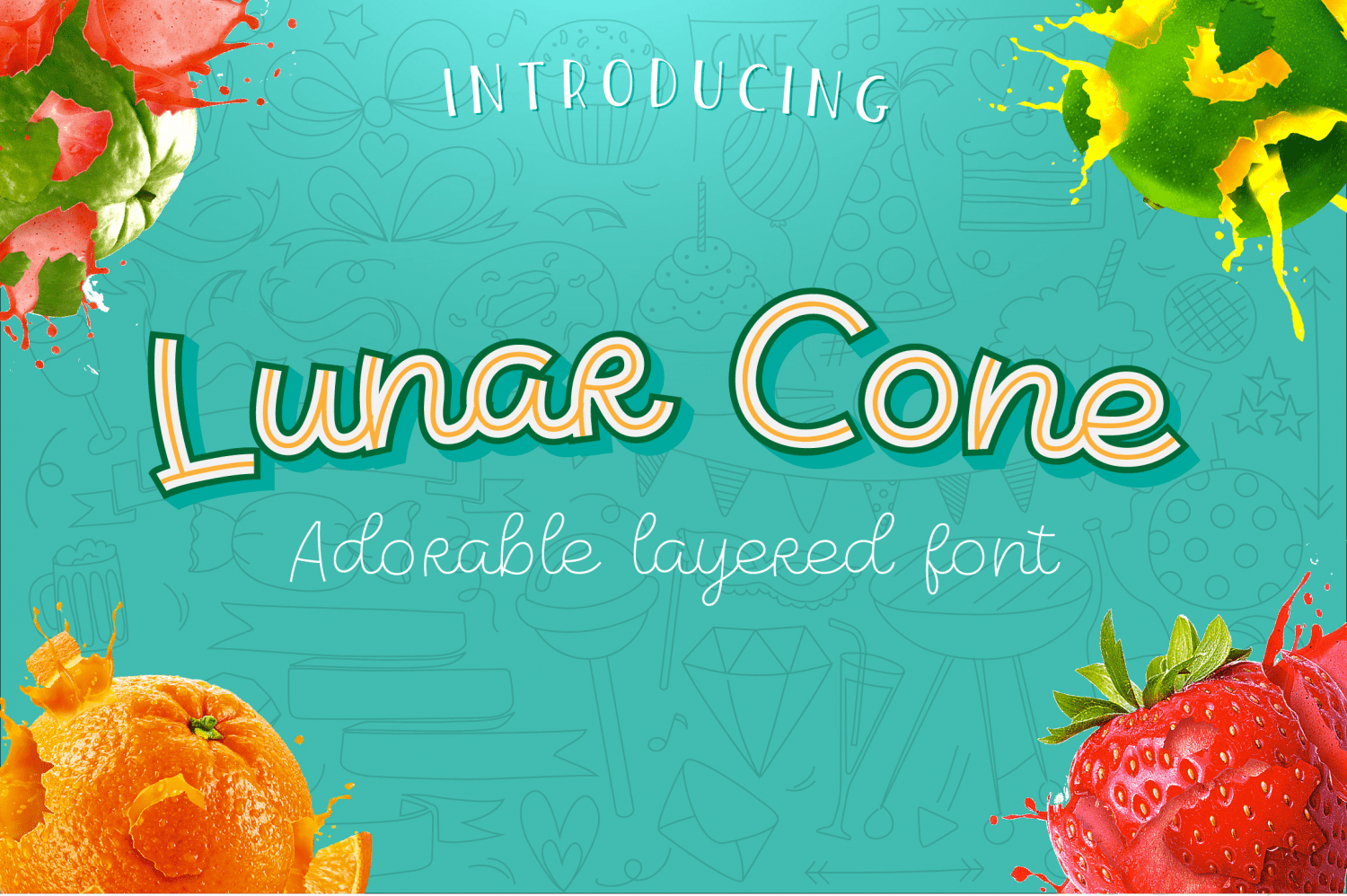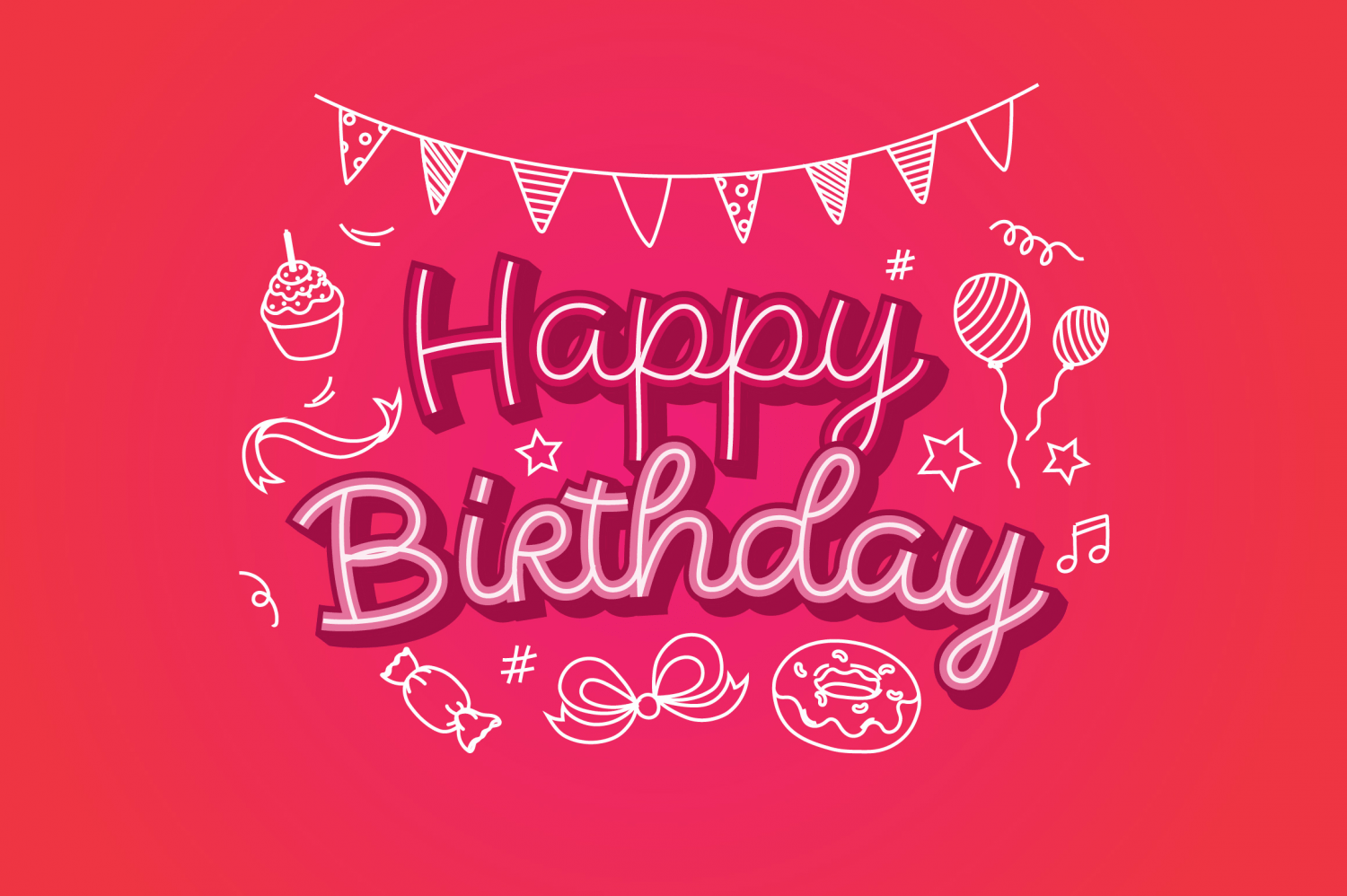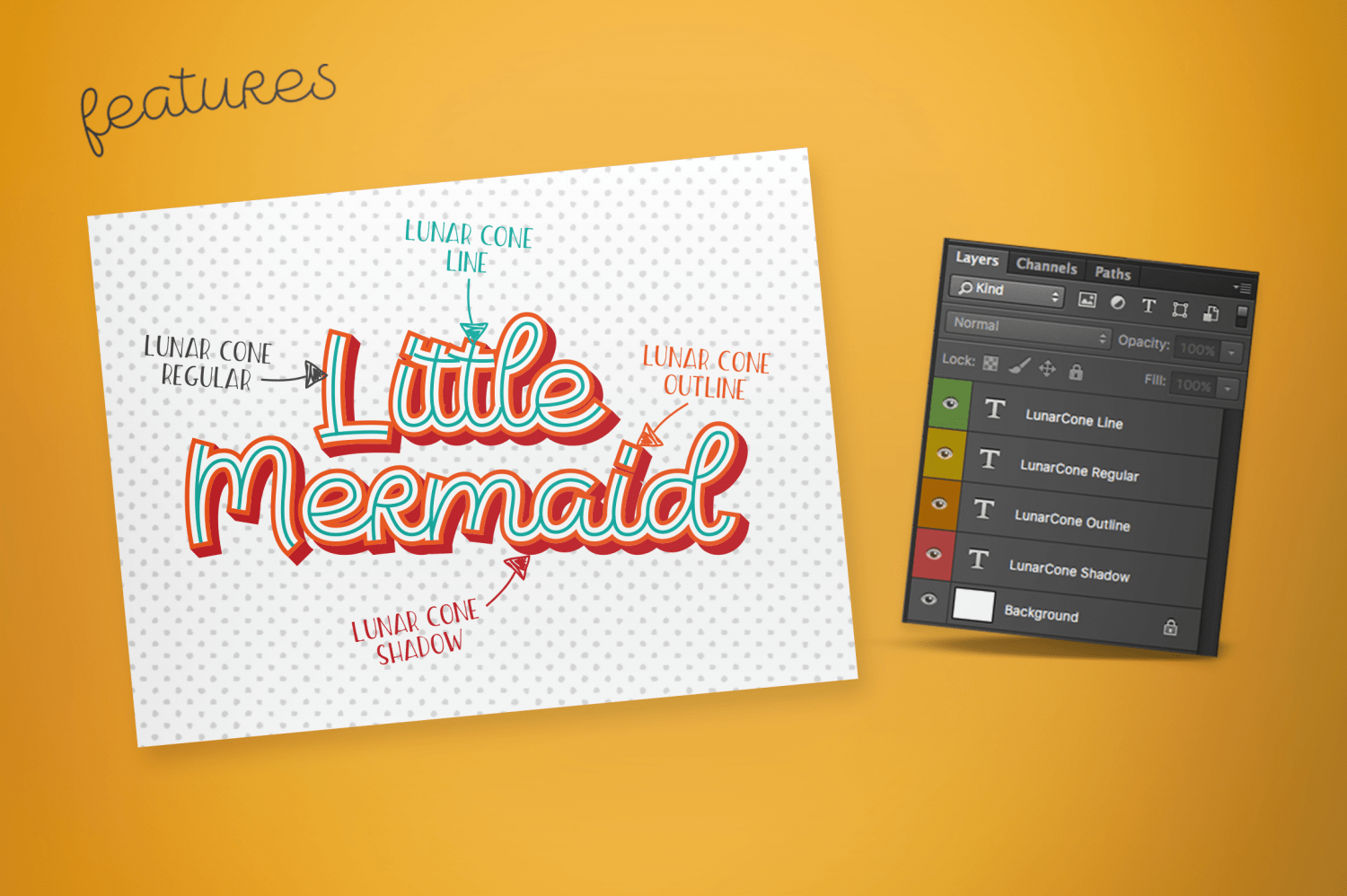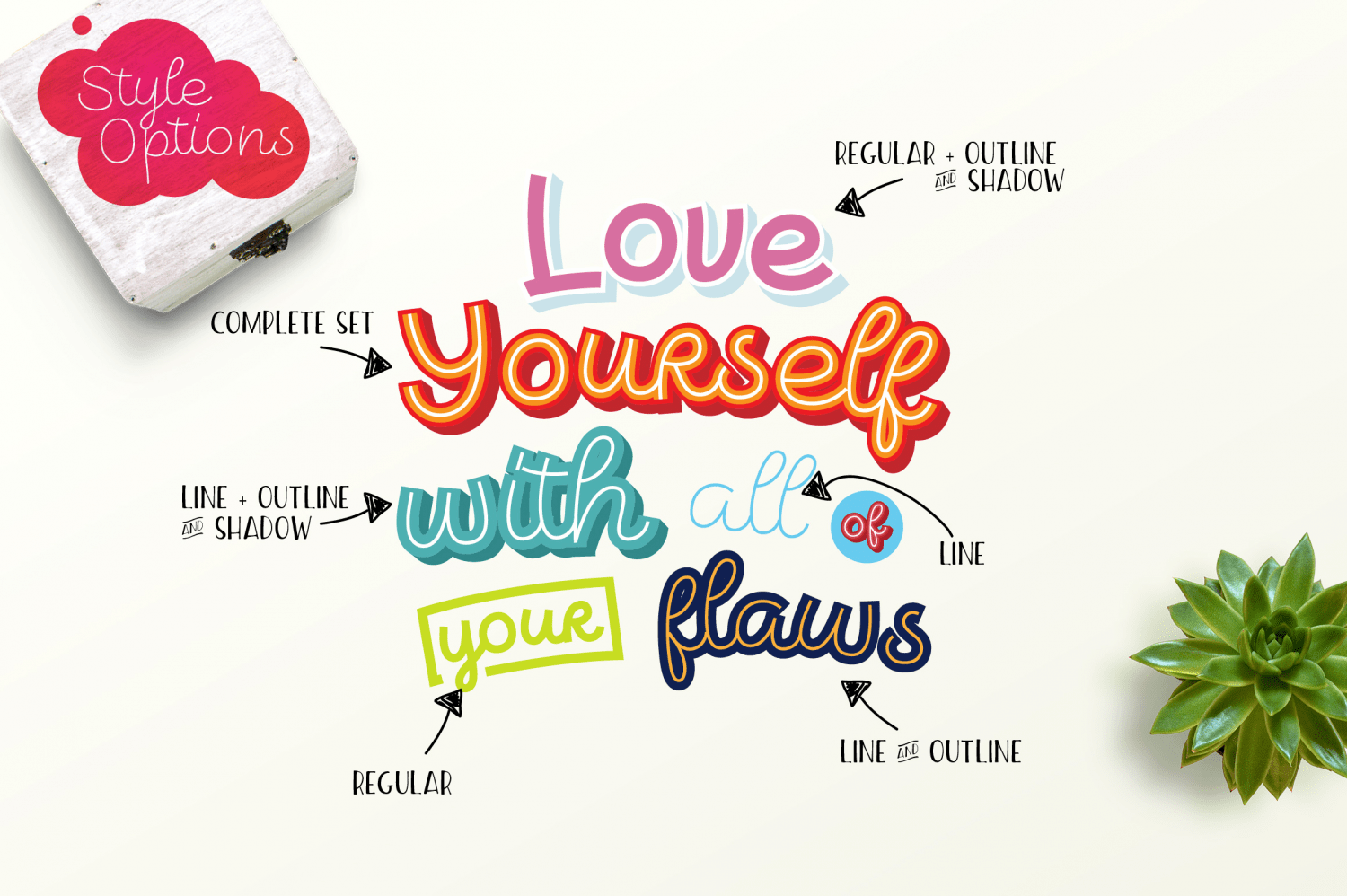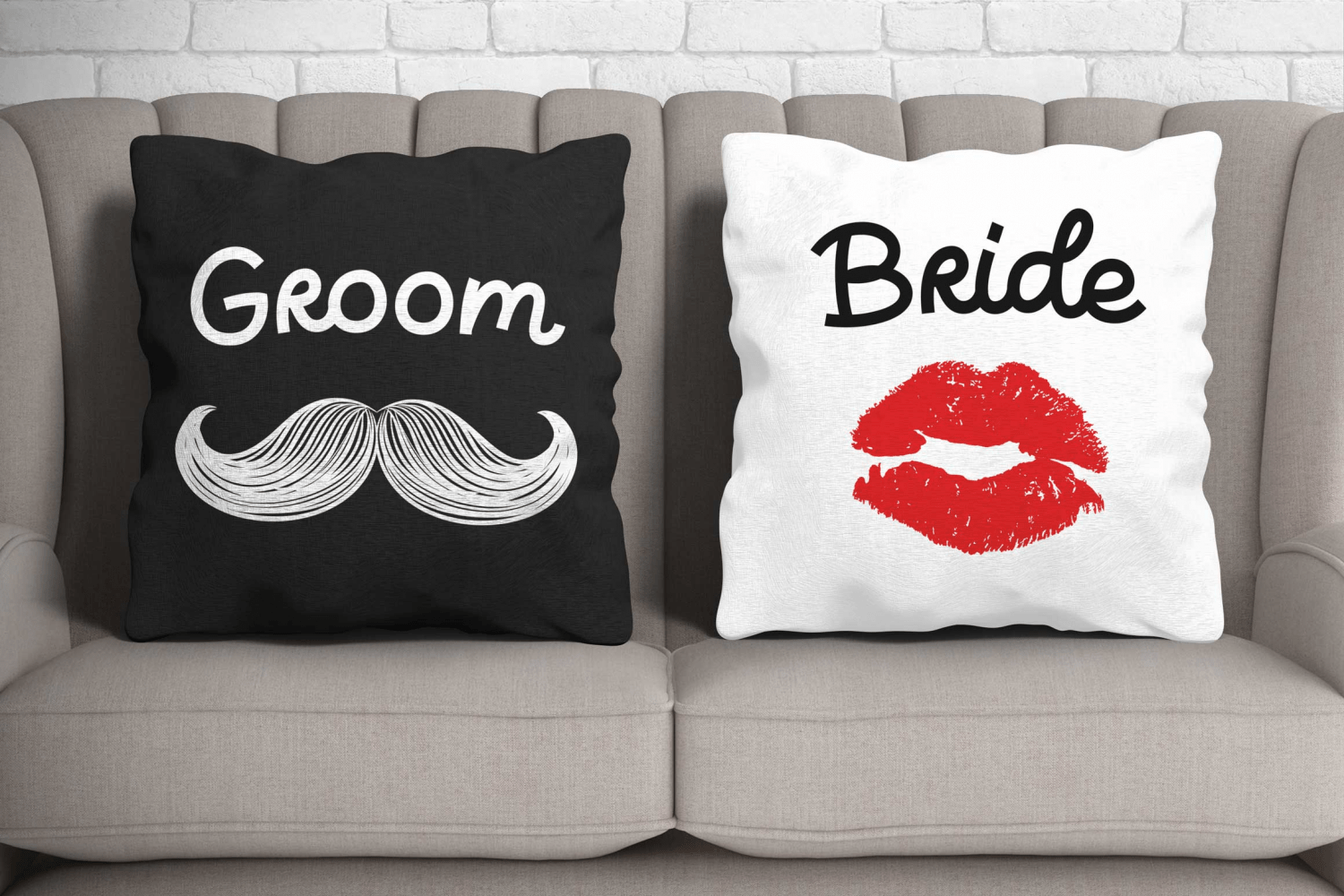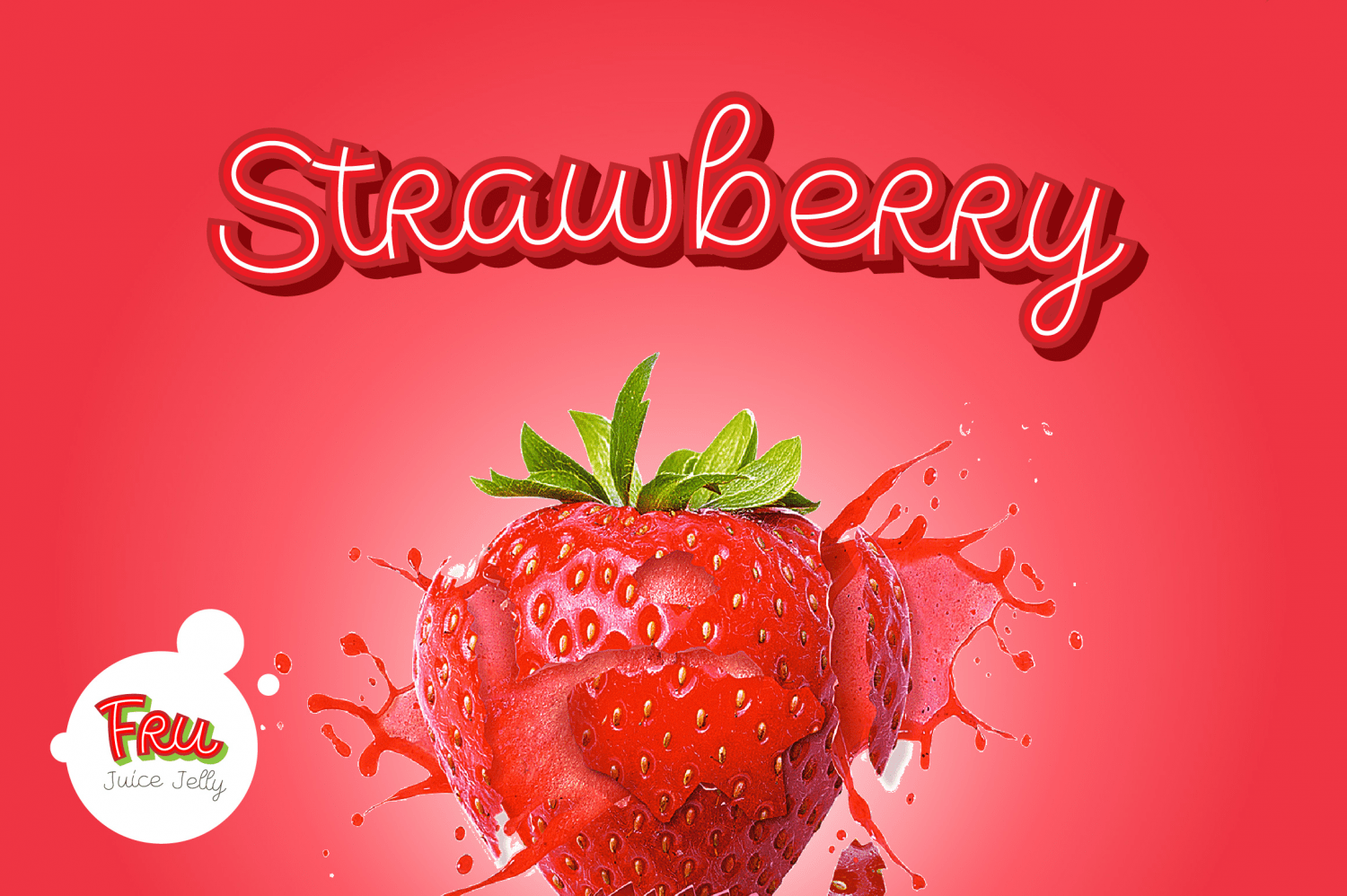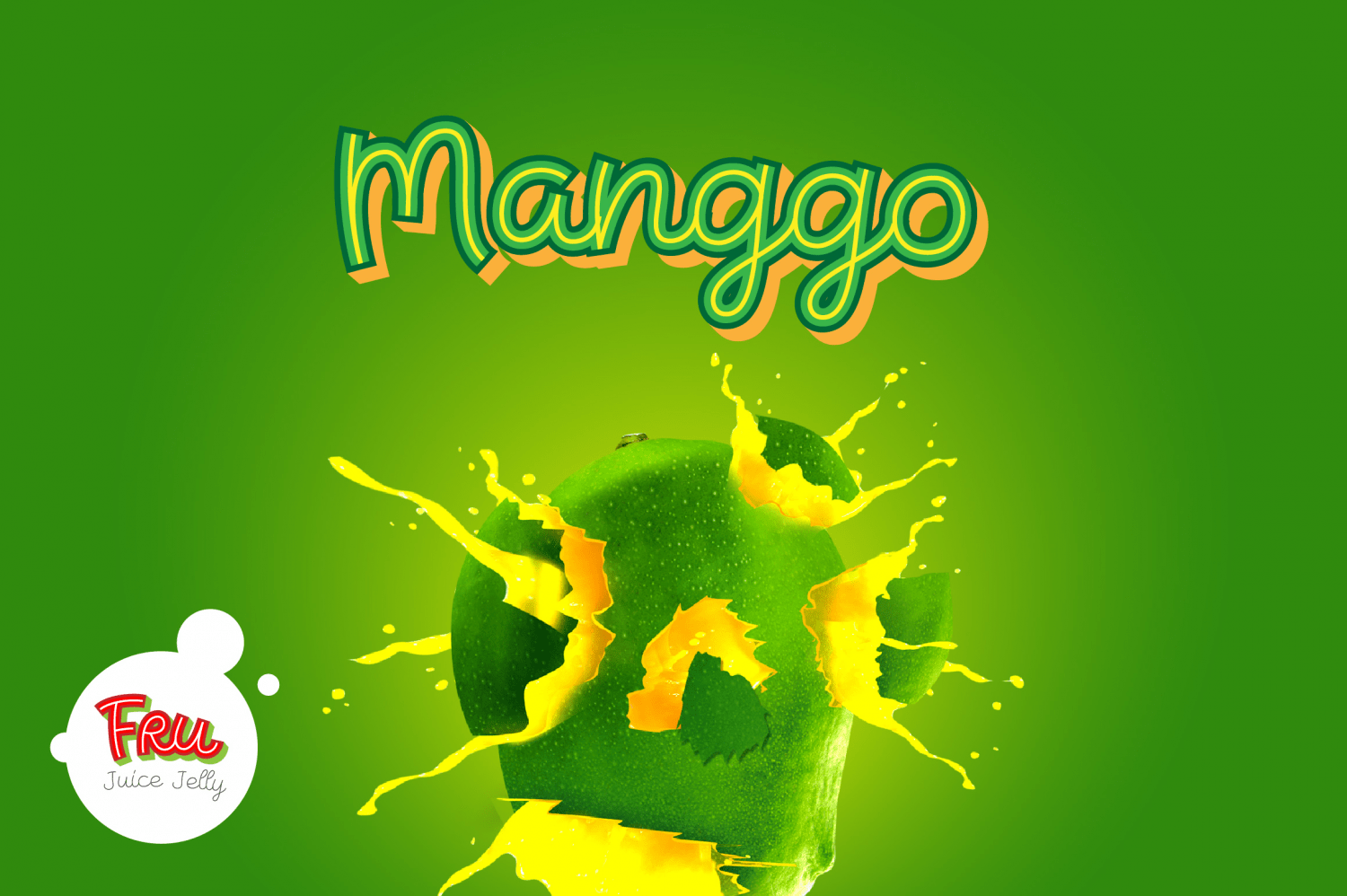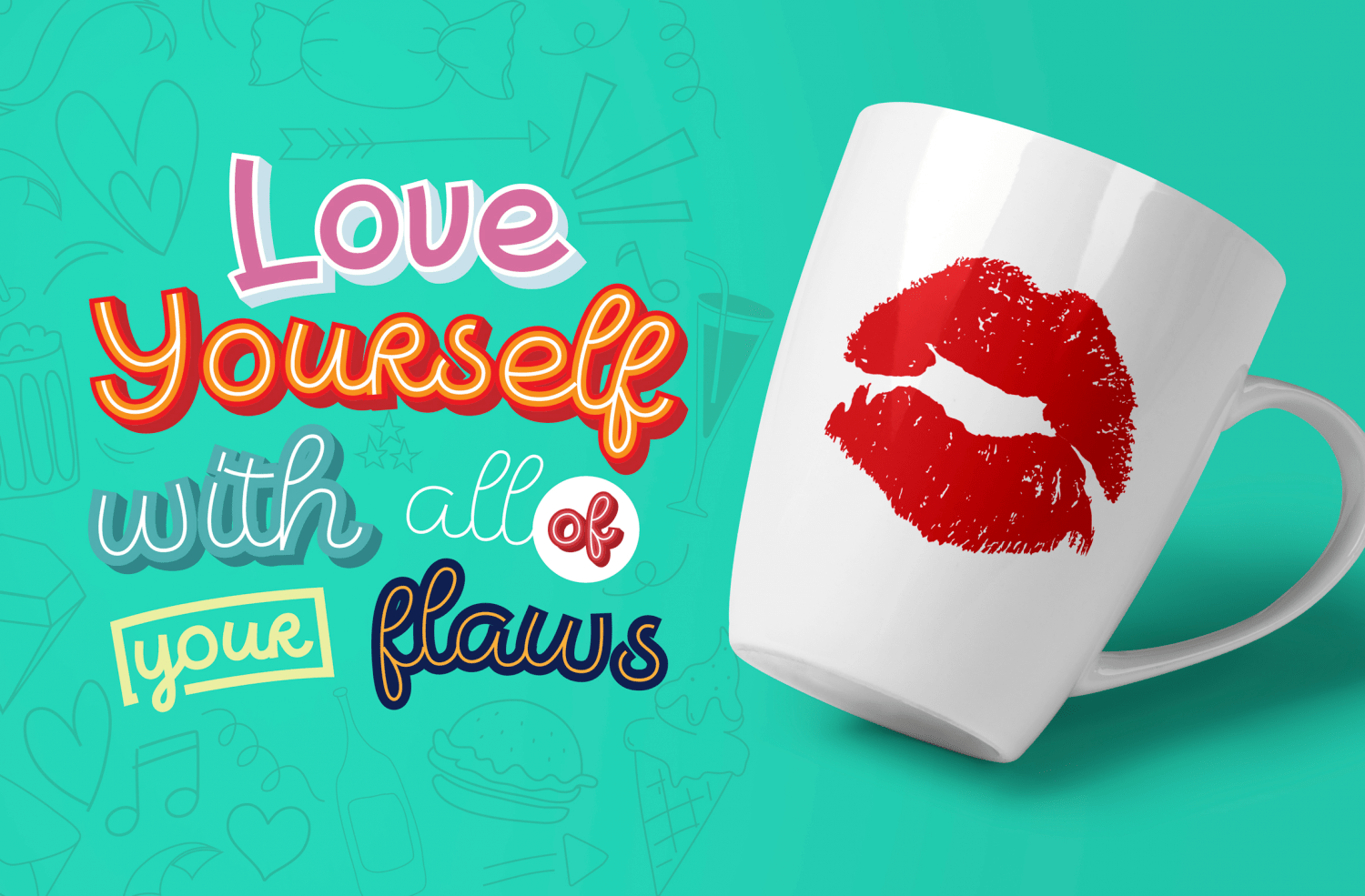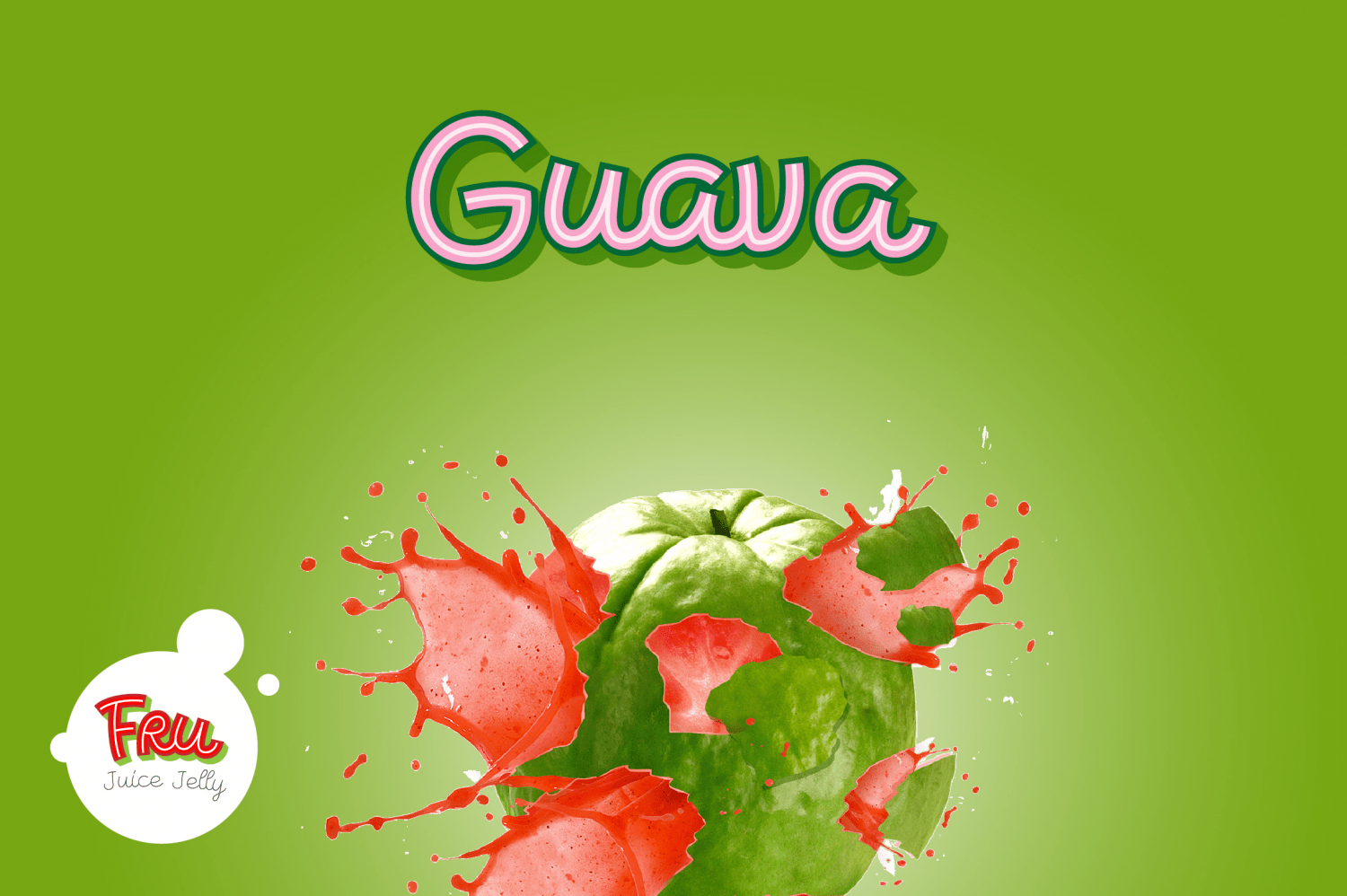
LunarCone
Comic, Silly and Cute design style are inspire me to create this Adorable fonts :). Creating with enjoyable on designing this fonts, so I create more layers to create more possibility for mix and match the style for your Adorable design.
Styling on Lunar Cone gives you more options to choose the design style. Like on my display I create some in Vector based design style, on Mock up, or combinations. So the design make the impression to be Cute and Silly.